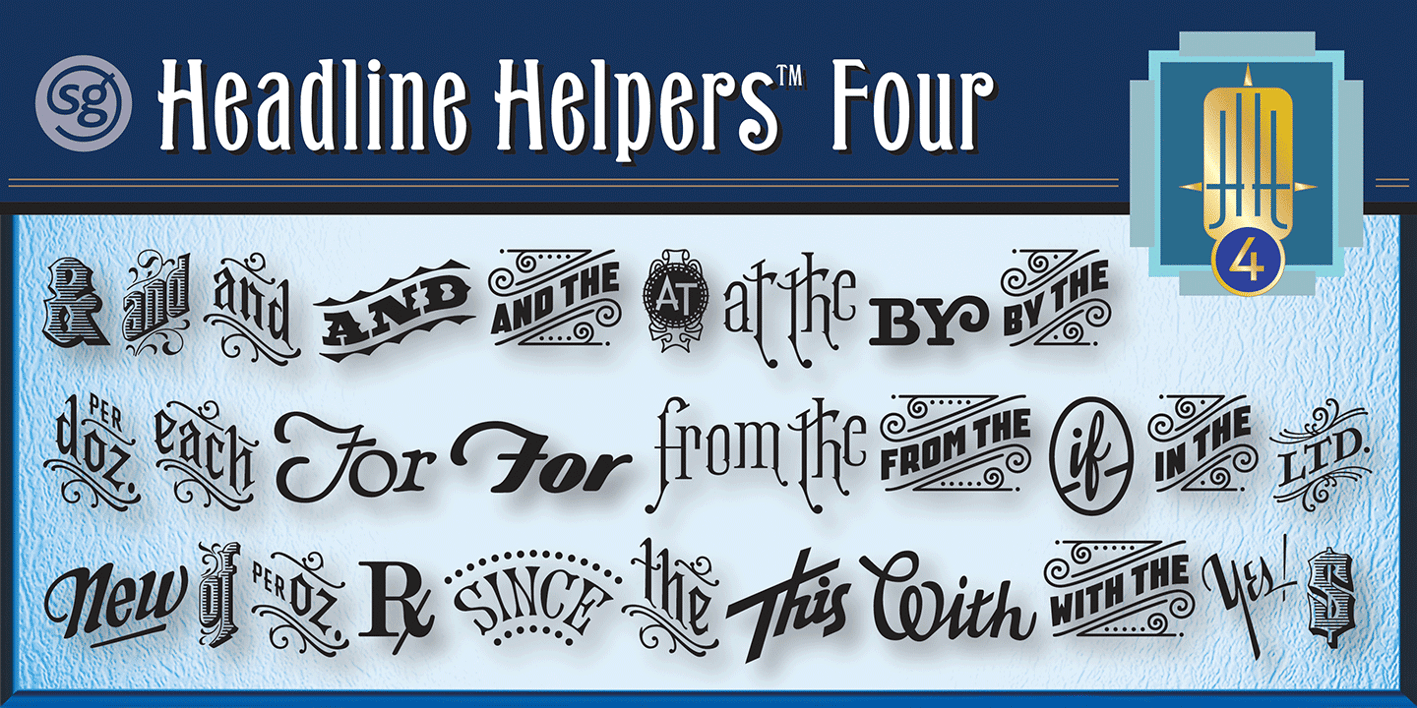
Headline Helpers SG Font
Headline Helpers SG Font is perfect for newspaper headlines, magazine mastheads, editorial design layouts, news website headers, publishing house materials, journalistic presentations, media company branding, press release formats, editorial blog headers, news bulletin graphics, publishing industry communications, and editorial projects that require powerful, headline-focused typography with journalistic authority and publishing excellence.
What makes Headline Helpers SG Font so exciting is its editorial precision and headline optimization that embodies the essential requirements of professional journalism and publishing industry standards. This typeface features bold, attention-commanding letterforms with newspaper-grade clarity and editorial characteristics that ensure maximum impact and readability in headline applications across all media formats. The font's journalistic character and publishing appeal make it perfect for media organizations and editorial professionals who need typography specifically engineered for headline impact, editorial hierarchy, and the kind of authoritative presence that defines quality journalism and professional publishing.
Headline Helpers SG Font typically comes in multiple weights and styles including Light, Regular, Medium, Bold, and Black variations, often with condensed widths. Many versions also include editorial symbols, publishing ornaments, and journalistic decorative elements that enhance the font's headline functionality and provide designers with comprehensive tools for creating professional, news-focused typography systems that meet editorial industry standards.
Whether you're designing newspaper layouts, magazine publications, or digital news platforms, Headline Helpers SG Font delivers exceptional headline performance and editorial authenticity that captures reader attention while maintaining the journalistic credibility that quality news media demands. Its bold, commanding appearance works exceptionally well in both print headlines and digital news applications where editorial impact and professional authority are essential for audience engagement.
The expertly crafted letterforms of Headline Helpers SG Font showcase the ultimate expression of headline typography and editorial design principles. Each character has been optimized for maximum headline impact while maintaining the editorial standards that professional journalism requires, ensuring that your news communications cut through information overload while delivering the authoritative presence that readers expect from quality editorial content.